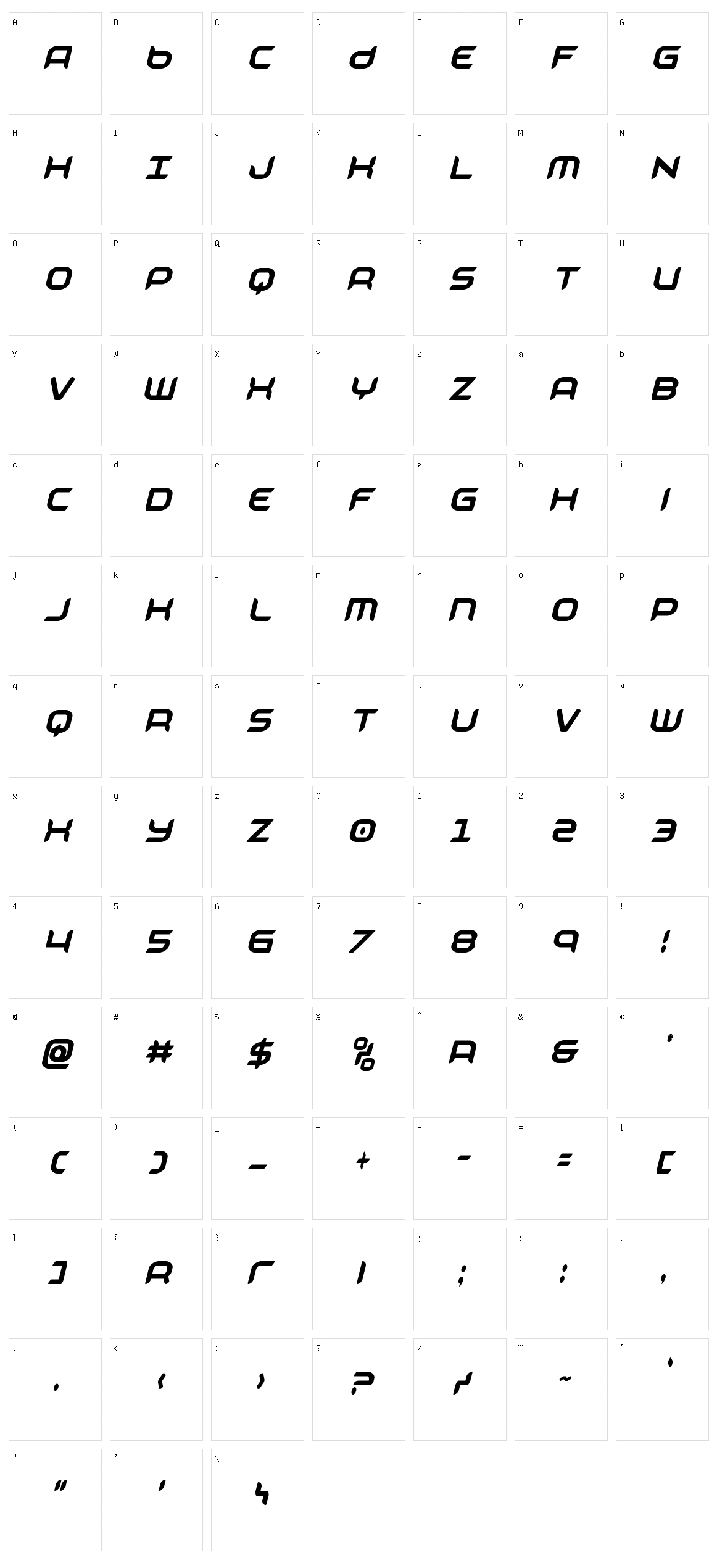
Zodiac Key
This font comes with the following 23 versions: Regular, Italic, Semi-Italic, Condensed, Condensed Italic, Extra-Condensed, Extra-Condensed Italic, Expanded, Expanded Italic, Outline, Outline Italic, 3D, 3D Italic, Laser, Laser Italic, Halftone, Halftone Italic, Gradient, Gradient Italic, Title, Title Italic, Super-Italic and Leftalic.